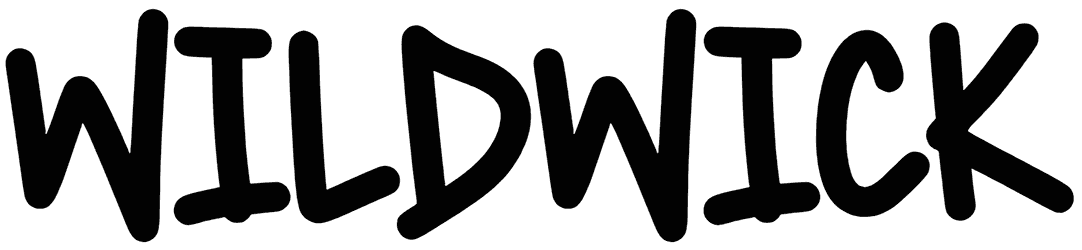
Wildwick Font
What do you think about using hand-drawn words with a graffiti style for your design this time? Wildwick is a handwritten font that represents an appealing face for many items. You don’t have all lowercase, but instead, you have two styles for some uppercase. Set this script font for your intended projects, from illustrations to logotypes, and bring them an artistic mood.